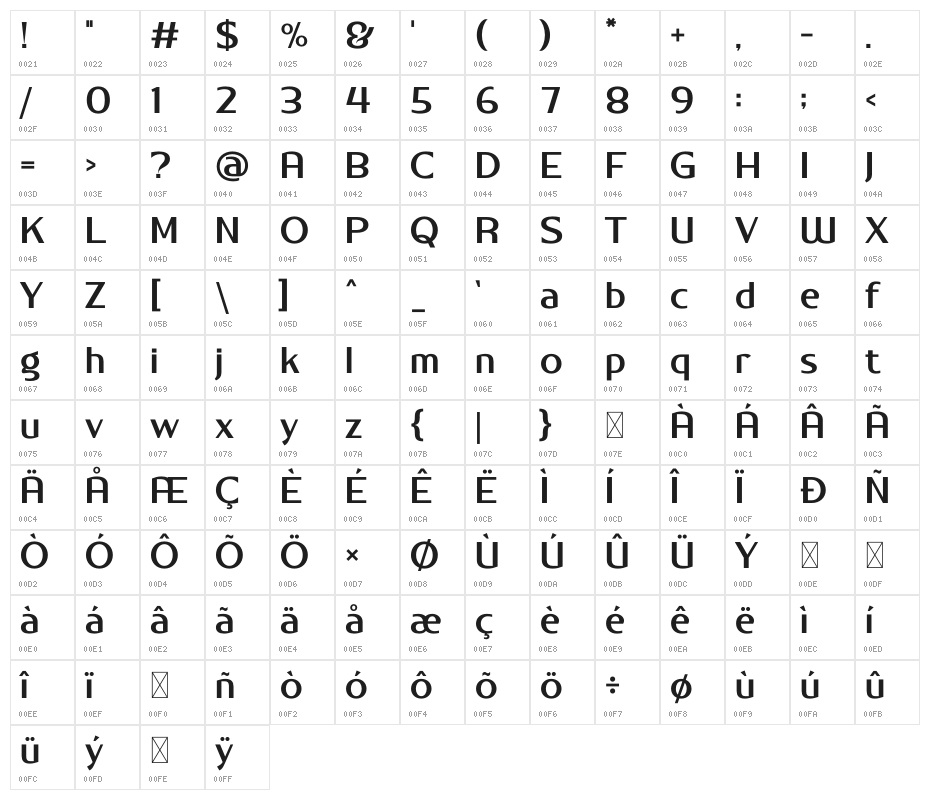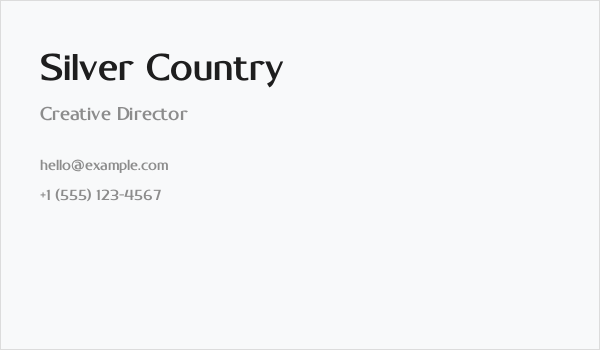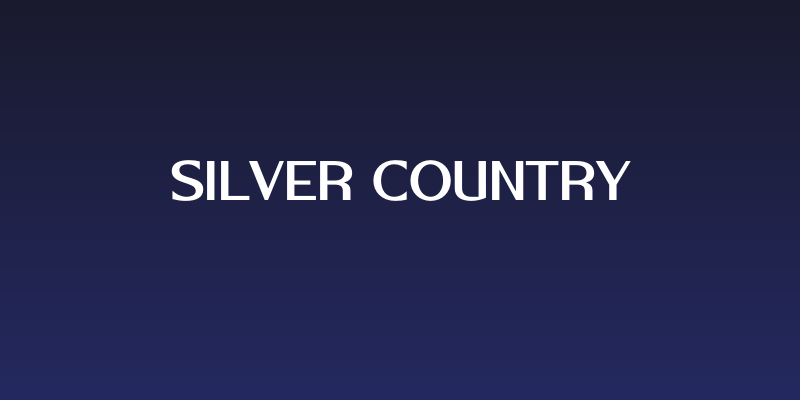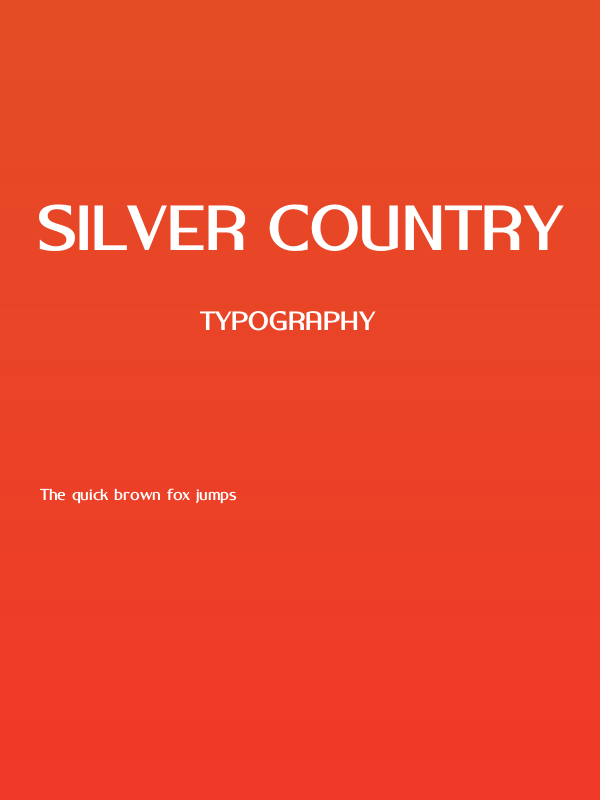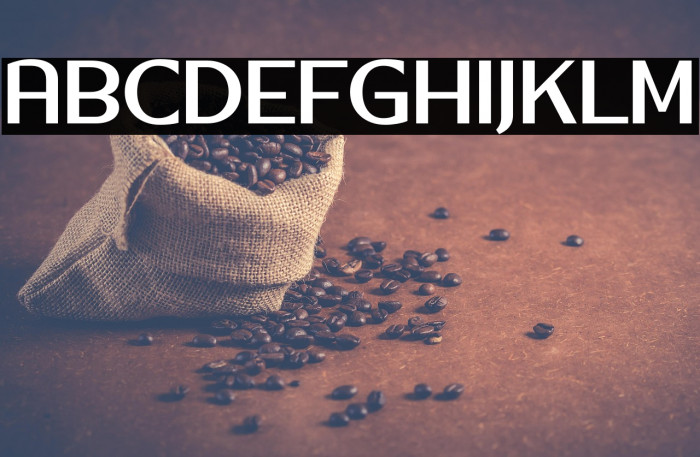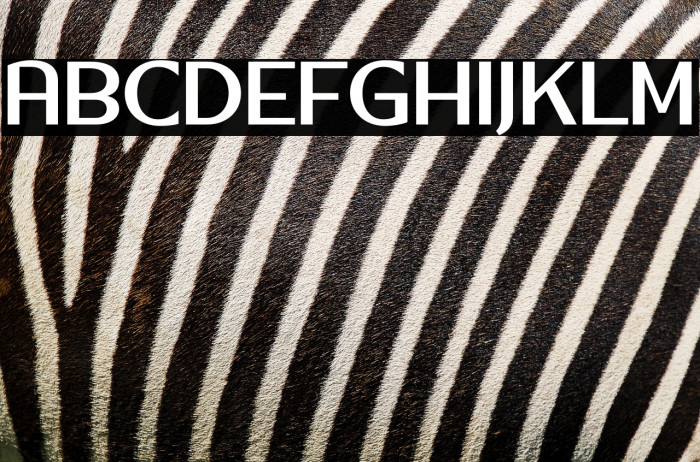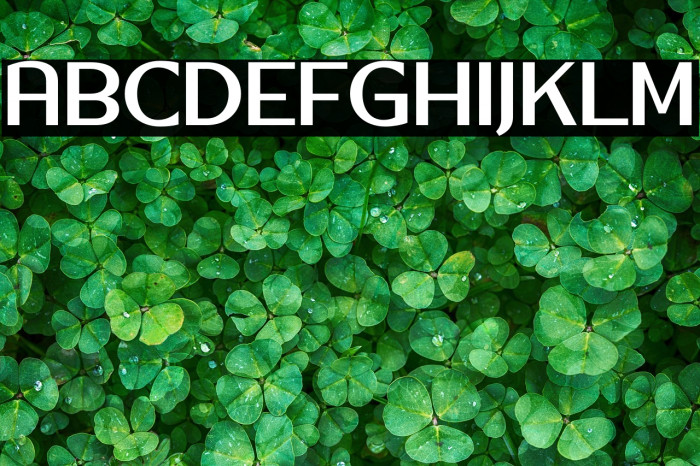
Silver Country Font
Silver Country Description
This font exhibits a clean and modern sans-serif style, characterized by its geometric shapes and uniform stroke widths. The uppercase letters are bold and assertive, while the lowercase letters maintain a consistent and harmonious flow. The numerals are clear and easily distinguishable, making them suitable for various applications. Special characters are well-defined, adding to the font's versatility. The overall design is sleek and professional, making it ideal for contemporary design projects.